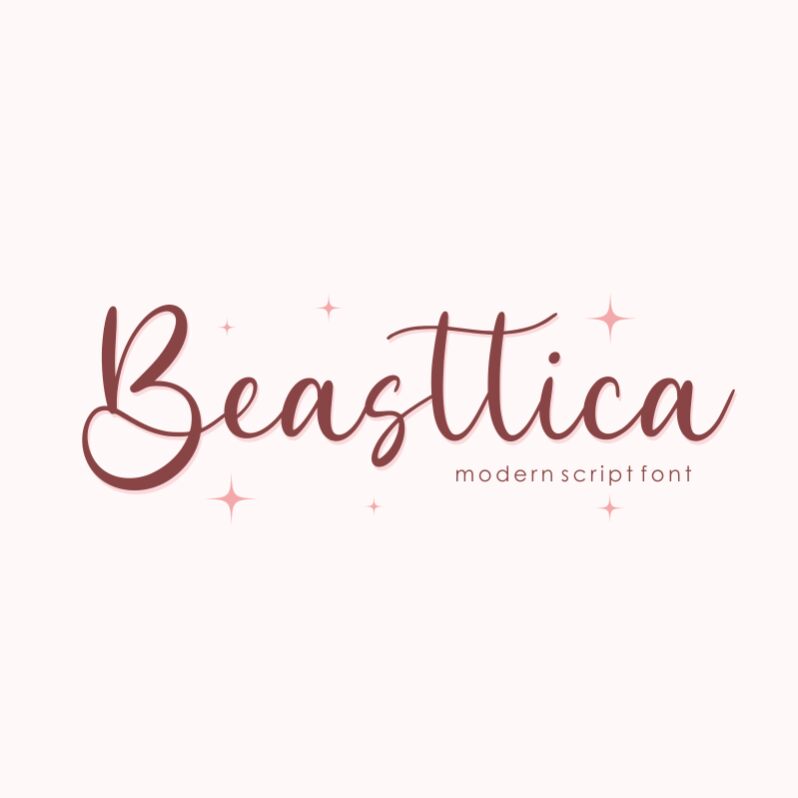
Beasttica is a modern script font designed by Qwrtype Foundry. Its semi-light weight gives it a delicate yet bold appearance, making it perfect for various projects such as wedding invitations, branding, packaging designs, and more. This versatile font can be used for both formal and informal settings, adding a touch of elegance to any project. Beasttica's smooth curves and flowing lines make it easy on the eyes while its modern script style adds personality to your design. Give your next project a unique edge with Beasttica – an excellent choice for those who want to stand out from the crowd!